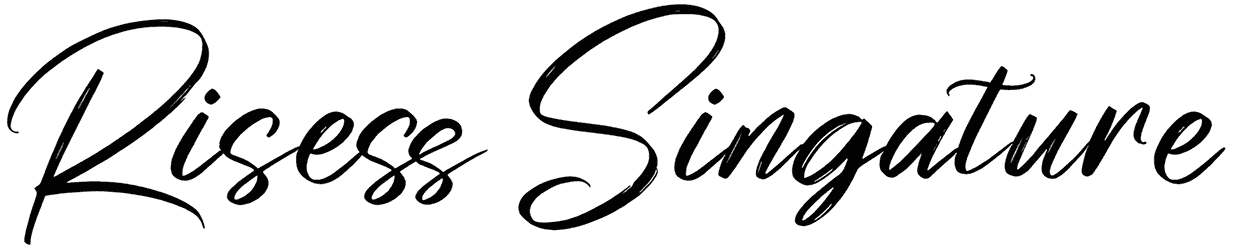
Risess Singature Font
Bring your design to the highest level with our new signature font, Risess Singature. It has a full set of beautiful and modern characters to add an elegant, yet luxurious look. This font may seem a bit unreadable, but you can use it in a variety of areas, including wedding invitations, social media, taglines, branding, and photography watermarks.